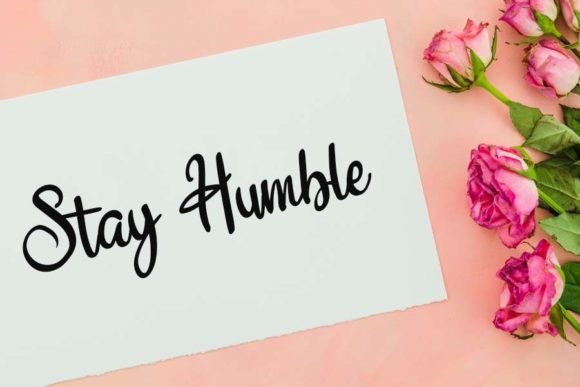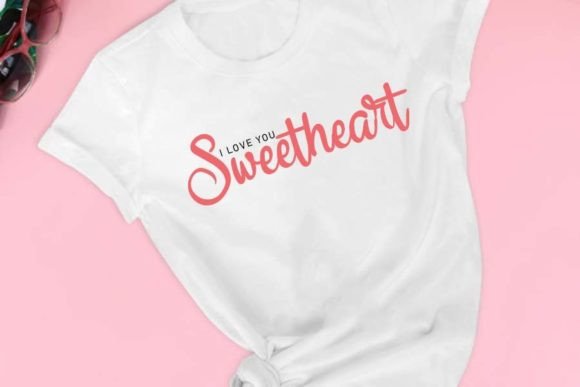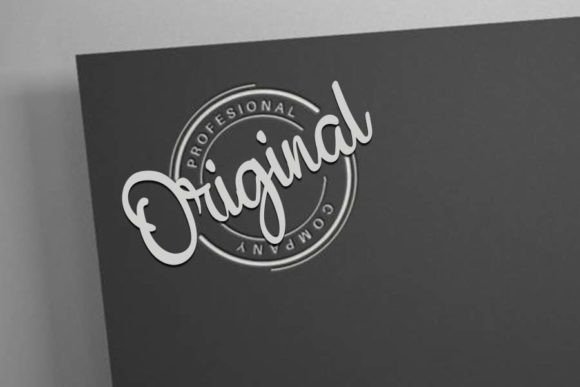
The Perfect Font to Elevate Your Creativity
Have you ever stared at a blank canvas, feeling like your ideas just aren’t coming together? You’ve got a vision, but it’s just out of reach. That’s where the right font can make all the difference. For designers and creatives, finding the perfect font can be a game-changer.
Enter the Best Silhouette Font, a masterfully designed handwritten font that’s sure to become a true favorite. Its unique style and flair have the potential to bring each of your creative ideas to the highest level. Whether you’re working on a branding project, designing a website, or creating a social media campaign, this font is sure to add a touch of sophistication and personality to your work.
As a valuable addition to any designer’s toolkit, the Best Silhouette Font offers endless possibilities for creativity and self-expression. Its versatility and unique charm make it a must-have for anyone looking to elevate their designs and stand out from the crowd.
Key Features of Best Silhouette Font
- Unique Silhouette Design: The font features a unique silhouette design that is perfect for creating visually appealing and modern designs.
- Multi-Language Support: The font is available in multiple languages, including English, Spanish, French, German, Italian, Portuguese, Dutch, Russian, Chinese, and Japanese.
- Unique Characters: The font includes a range of unique characters, including symbols, icons, and glyphs, that can be used to add visual interest to designs.
- Professional Quality: The font is designed to meet professional standards, making it perfect for use in business, marketing, and design applications.
Review of “Best Silhouette Font”
Overall, I’m quite impressed with “Best Silhouette Font” ✨. It’s a clean, modern font that’s perfect for any project that requires a sleek and sophisticated look. The font is highly customizable, allowing you to adjust the thickness, texture, and color to suit your design needs.
Here are some of the things that I like about this font:
- Highly customizable, allowing for a wide range of design options ✨
- Clean and modern aesthetic, perfect for a variety of projects
- Works well in both digital and print formats
- Easy to use and navigate
However, there are a few limitations to be aware of ⚠️:
- The font may not be suitable for projects that require a more playful or whimsical feel
- The customization options can be overwhelming for beginners
- Some users may find the font to be a bit too minimalist
Overall, I’d give “Best Silhouette Font” a solid 4 out of 5 stars. While it may not be perfect for every project, it’s a versatile and highly customizable font that’s sure to impress.
Best Silhouette Font: A Practical Application Guide
Tips for Getting the Most Out of the Best Silhouette Font
Use the Best Silhouette Font to create dramatic and eye-catching text effects.
Combine the font with bold colors and contrasting backgrounds for maximum impact.
Experiment with different font sizes and alignments to create visually appealing compositions.
The Best Silhouette Font is ideal for:
Food and product labels
Artistic and creative projects
Alternatives to Best Silhouette Font for Designers
The Great Vibes font is a modern, elegant, and highly legible font that is perfect for creating a sophisticated and professional look. It’s ideal for use in headings, titles, and quotes. Compared to Best Silhouette Font, Great Vibes is more versatile and has a wider range of font weights and styles, making it a popular choice among designers.
Pacifico is a beautiful, handwritten font that adds a touch of elegance and sophistication to any design. It’s perfect for use in quotes, headings, and titles, and is particularly well-suited for designs that require a more relaxed, casual feel. Compared to Best Silhouette Font, Pacifico is more cursive and has a softer, more organic feel.